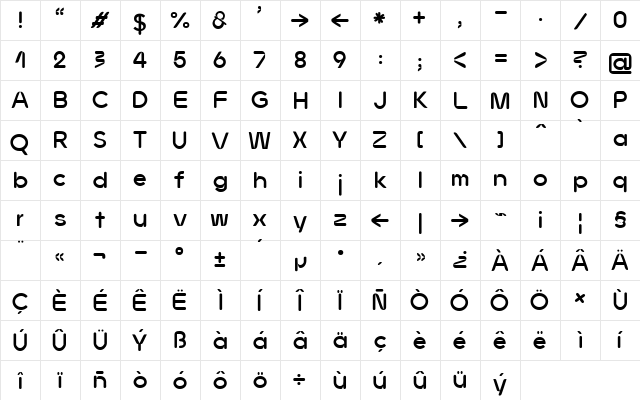
JMH Ava Bold
Design Context for JMH Ava Typeface
JMH Ava offers clean, dependable letterforms without strong stylistic allegiance, making it a practical choice for designers who need flexibility. The heavy weight commands attention and anchors typographic hierarchies.